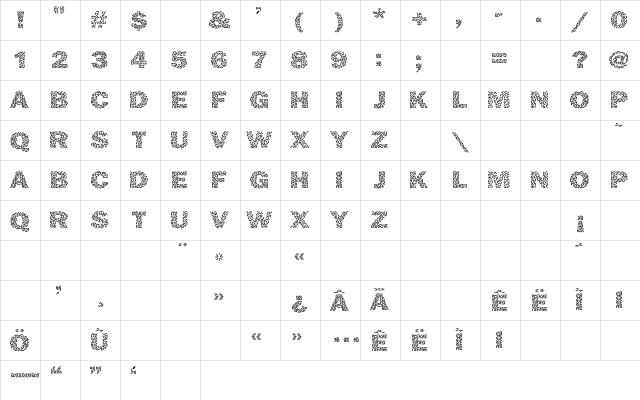
Ricecakes Regular Free Font
Ricecakes Regular
Design Context for Ricecakes
Ricecakes is a composed and adaptable typeface that performs quietly and consistently across a wide range of design contexts.